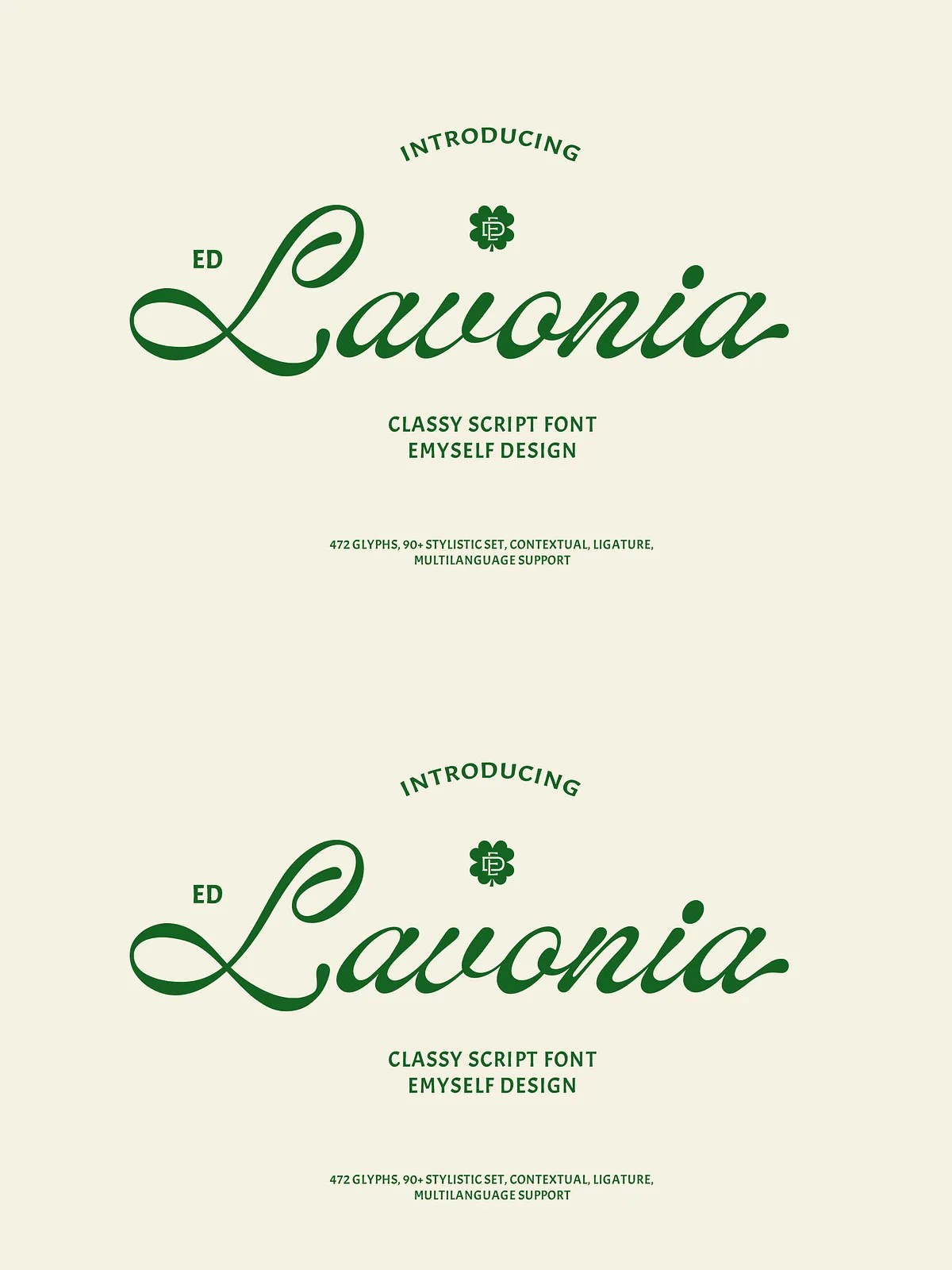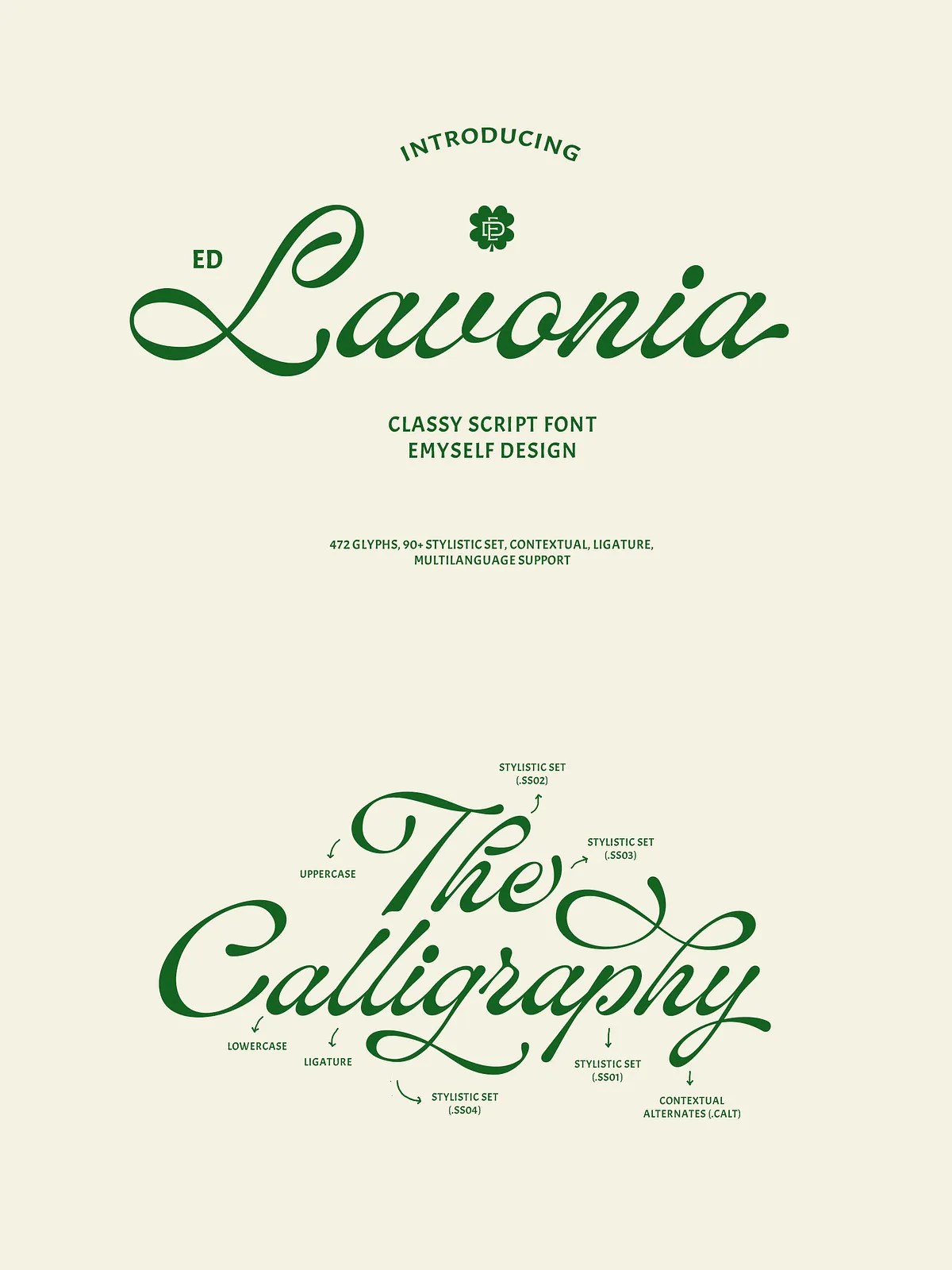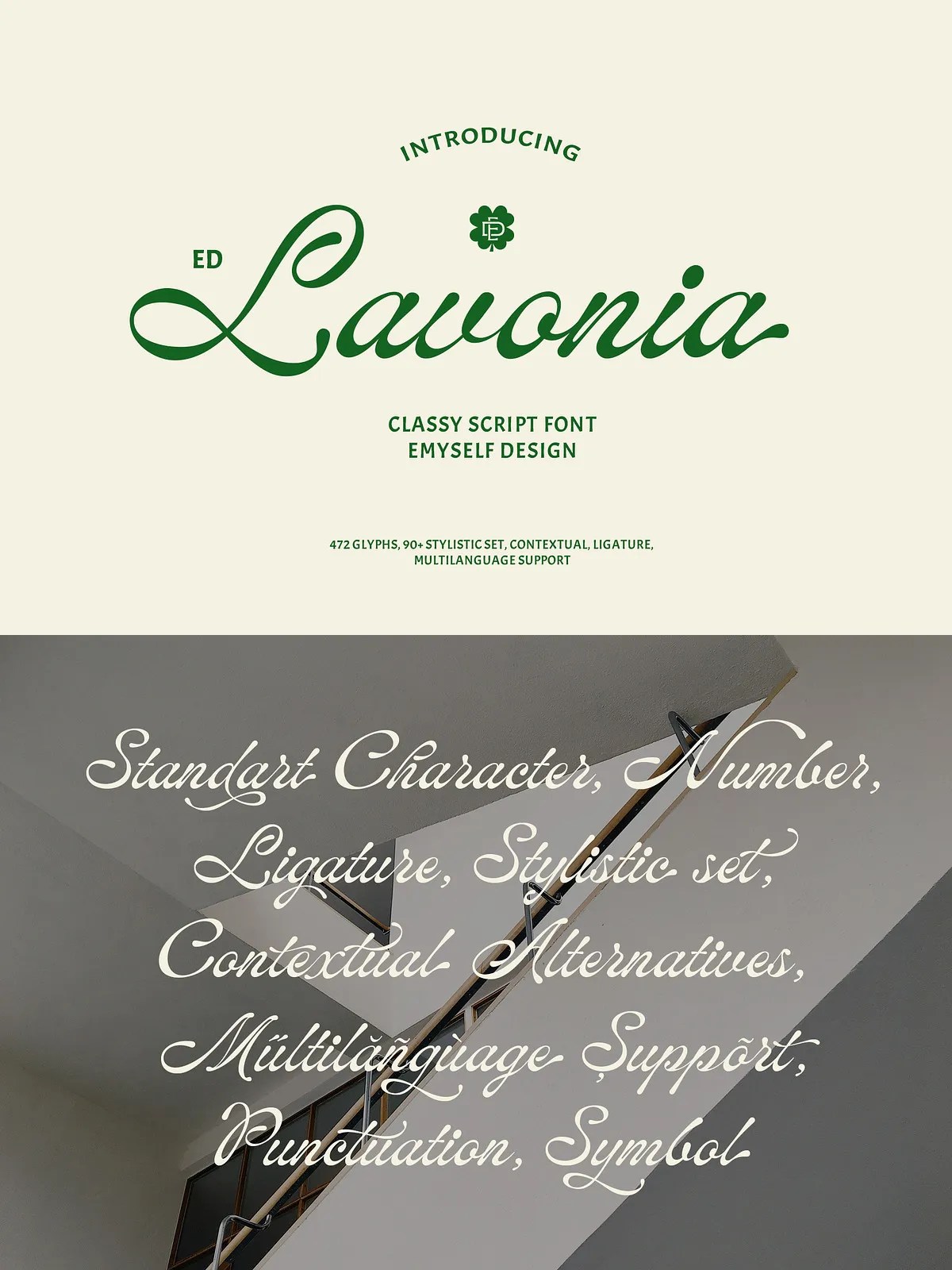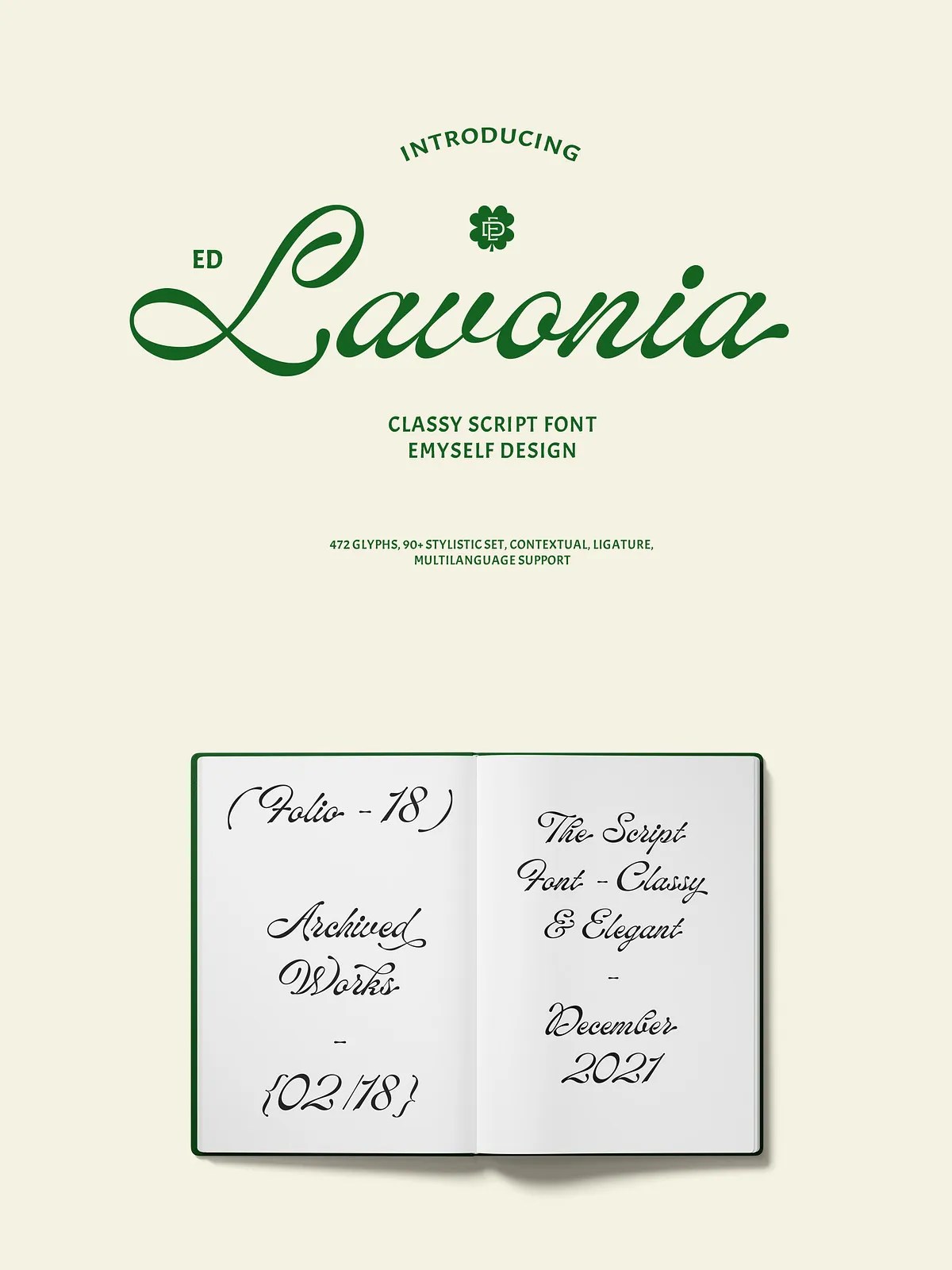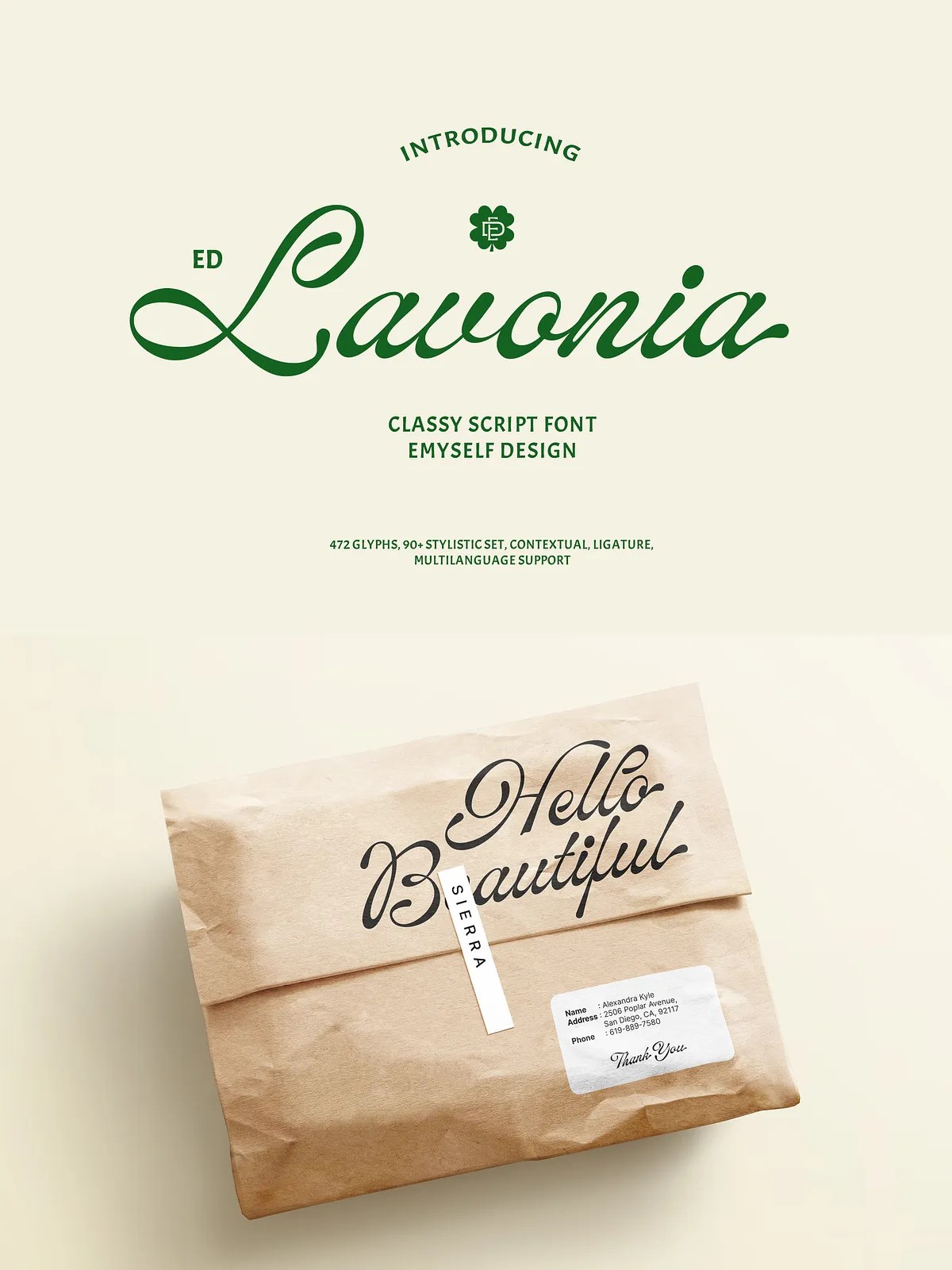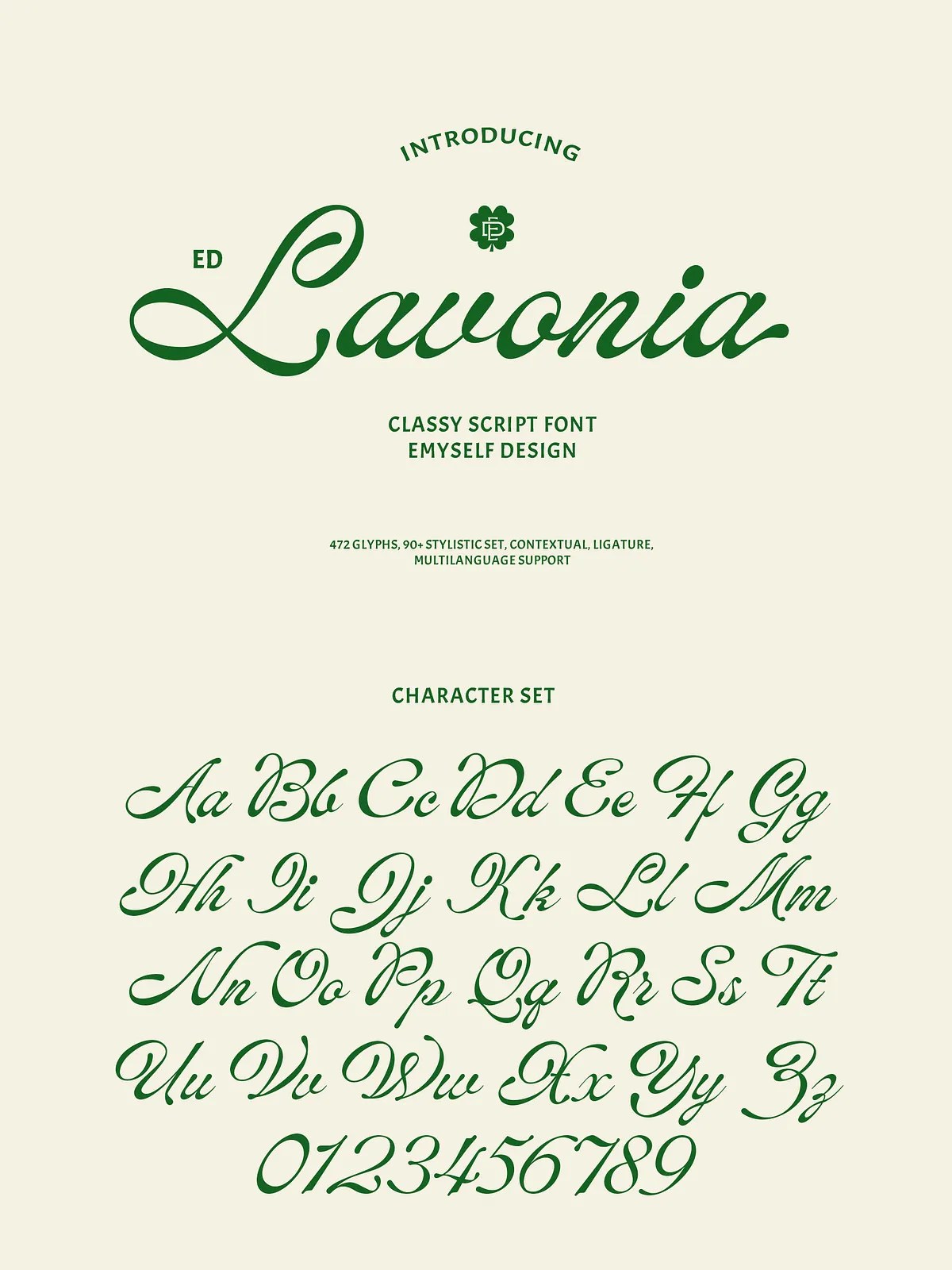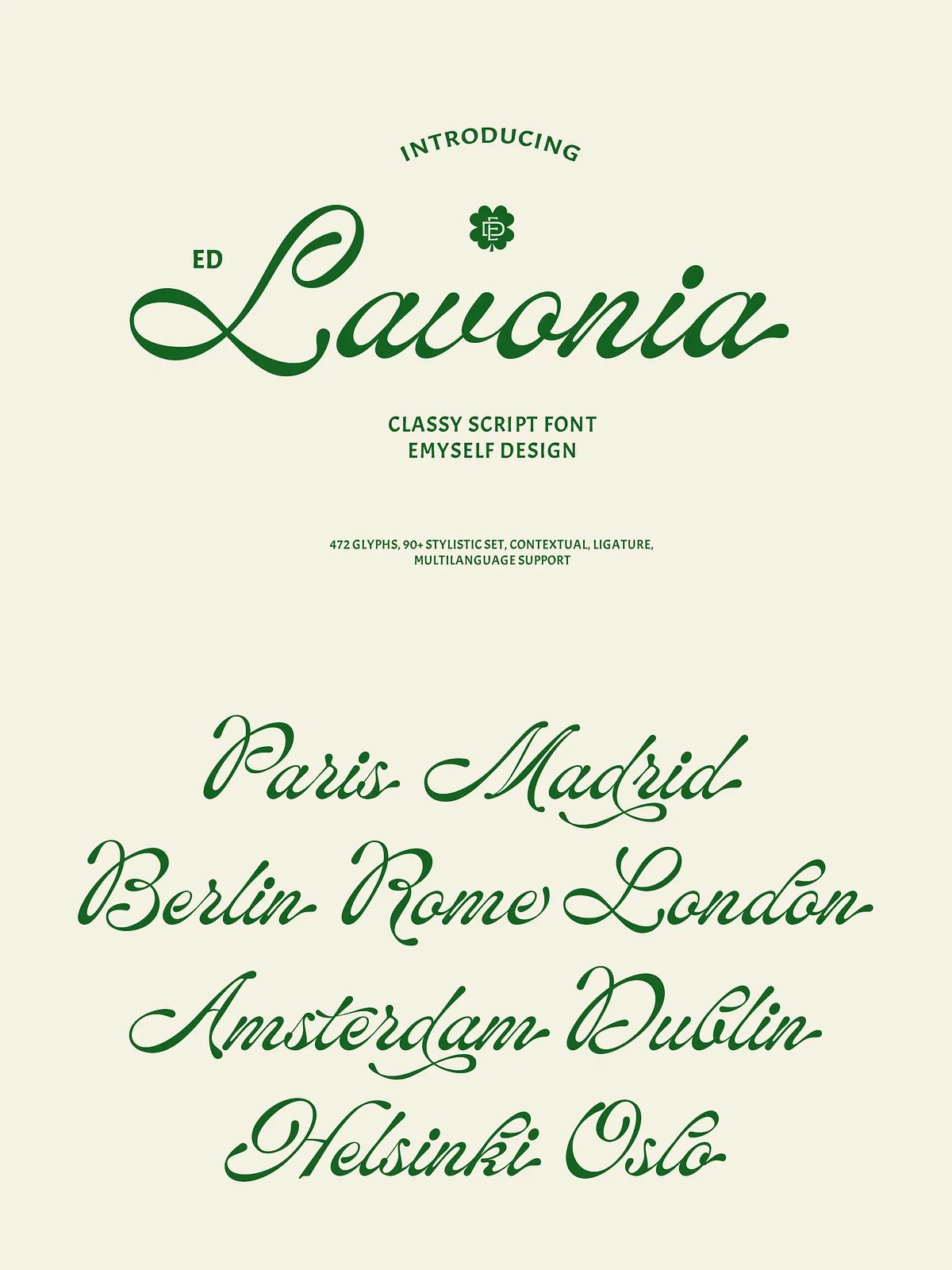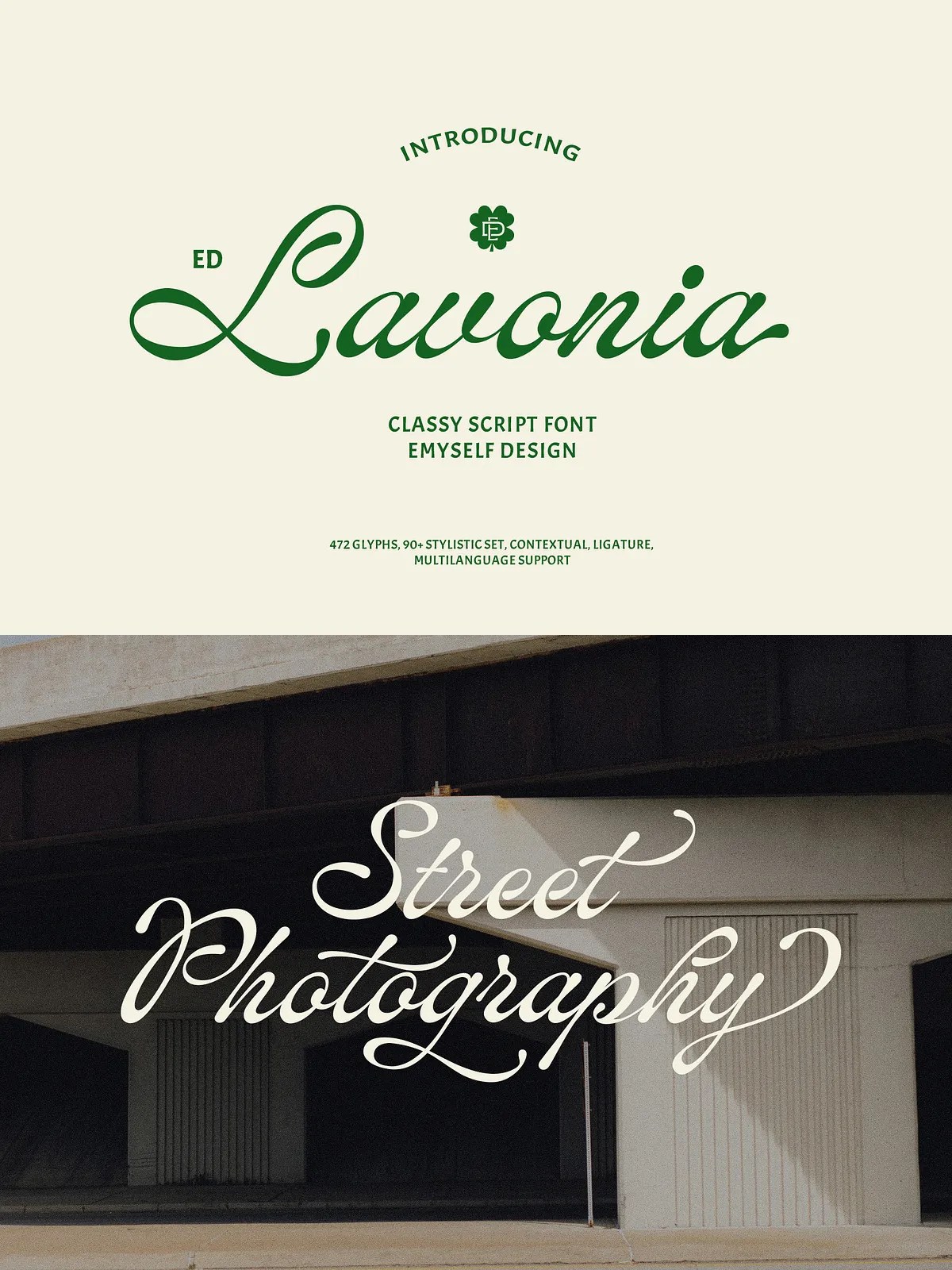
ED Lavonia – Classy Script
Elevate your design projects with Lavonia Script, a sophisticated typeface that bridges the gap between contemporary aesthetics and timeless elegance. Inspired by the refined art of classic handwriting found in literature, this font brings a touch of literary charm to your digital and print designs. Lavonia Script is not just a font; it is a comprehensive design tool equipped with over 90 stylistic sets, contextual alternatives, and ligatures. These features allow you to customize every aspect of your typography, ensuring that your work stands out with a unique and polished look. With robust multi-language support, this font breaks geographical barriers, enabling you to create authentic, region-specific designs with ease.
Unmatched Customization and Features
One of the standout aspects of Lavonia Script is its extensive library of typographic controls. Designers who seek precision and variety will appreciate the inclusion of more than 90 stylistic sets. These sets allow you to swap out standard characters for more decorative or simplified versions, giving you complete control over the visual tone of your text. Additionally, the font includes contextual alternatives that automatically adjust letterforms based on their neighbors, ensuring smooth and natural-looking transitions. The inclusion of ligatures further enhances the aesthetic appeal, connecting characters in elegant ways that mimic hand-drawn calligraphy.
The font pack is comprehensive, containing 472 total glyphs. This includes a full set of uppercase and lowercase letters, essential punctuation marks, and a variety of symbols. Whether you need basic text or special characters for specific design accents, Lavonia Script provides the necessary tools. The availability of multiple file types, including .otf, .ttf, and .woff, ensures compatibility across various design software and web platforms, making it easy to integrate into any workflow.
Ideal Applications for Creative Projects
Lavonia Script is designed to be a versatile companion for a wide range of creative endeavors. Its blend of classic elegance and modern functionality makes it suitable for numerous applications:
Branding and Logotypes
Create memorable brand identities that resonate with sophistication. Use Lavonia Script for logotypes and brand names to convey a sense of heritage and quality. The unique character forms and stylistic variations allow you to tailor the font to match the specific personality of a brand, whether it is a luxury fashion label, a boutique hotel, or an artisanal food product.
Printed Materials and Invitations
Make a lasting impression with printed quotes, invitations, and cards. The hand-drawn inspiration of Lavonia Script adds a personal touch to wedding invitations, event programs, and greeting cards. The contextual alternatives ensure that the text flows naturally, enhancing the readability while maintaining an elegant aesthetic. Use it for letterheads to give your business correspondence a distinct and professional appearance.
Product Packaging and Apparel
Stand out on the shelves with eye-catching product packaging. Lavonia Script works beautifully on labels, tags, and packaging designs for beauty products, wine bottles, and gourmet goods. The font’s legibility and decorative elements make it perfect for apparel designs, adding a stylish touch to t-shirts, tote bags, and fashion accessories. Its ability to adapt to different contexts makes it a reliable choice for designers who need a font that performs well in both small and large formats.
Web Design and Editorial Use
In the digital realm, Lavonia Script enhances web design and editorial layouts. Use it for headers, navigation menus, and key call-to-action buttons to draw attention and guide user interaction. The inclusion of .woff files ensures that the font renders correctly on various devices and browsers, maintaining its visual integrity across the web. For editorial design, incorporate Lavonia Script into magazine layouts, book covers, and blog posts to add a layer of sophistication and visual interest. Its multi-language support allows you to create content for diverse audiences, ensuring that the font’s charm is preserved across different languages and scripts.
Why Choose Lavonia Script?
Choosing Lavonia Script means opting for a typeface that offers both beauty and functionality. Its modern classic style appeals to a wide range of audiences, while its extensive features provide the flexibility needed for professional design work. The over 90 stylistic sets and contextual alternatives allow for endless creative possibilities, ensuring that you can always find the perfect look for your project. With 472 glyphs and support for multiple file types, Lavonia Script is a comprehensive solution for any designer looking to add a touch of elegance to their work.
Embrace the charm of classic handwriting with a modern twist. Lavonia Script empowers you to create designs that are not only visually stunning but also technically robust. Whether you are working on a branding project, a print design, or a web layout, this font provides the tools and flexibility to bring your creative vision to life. Explore the full potential of Lavonia Script and elevate your designs with a typeface that truly stands out.